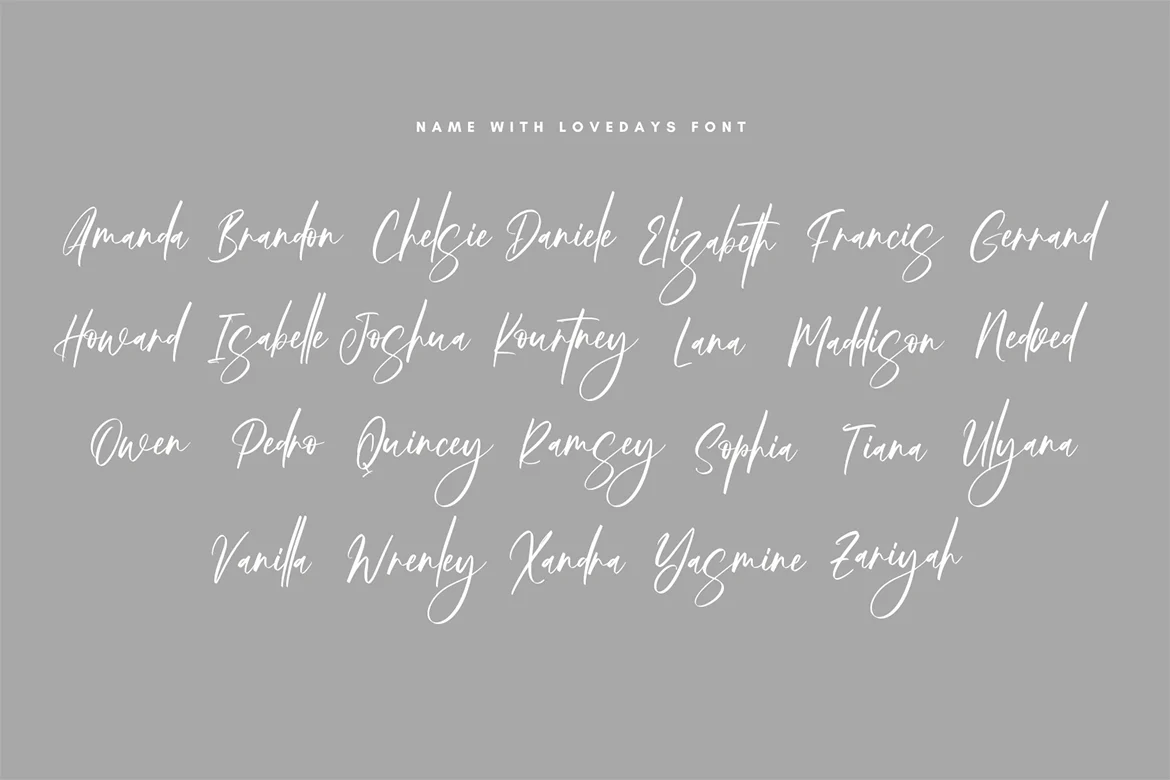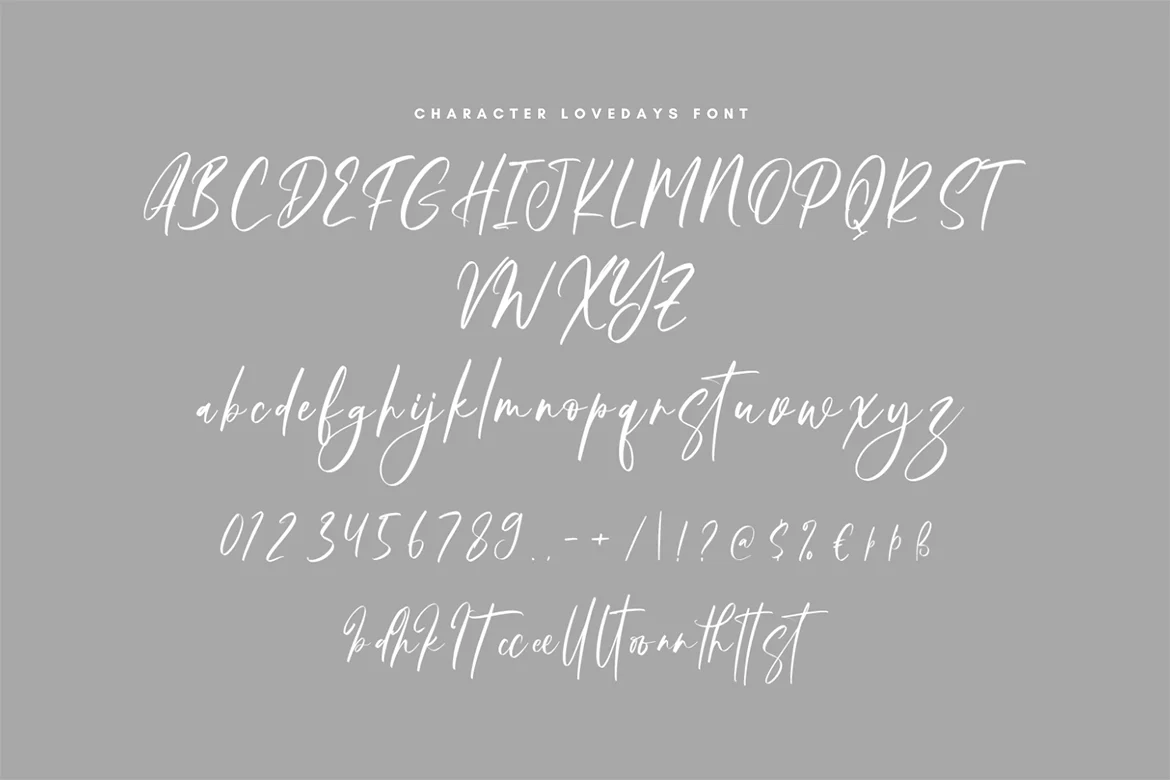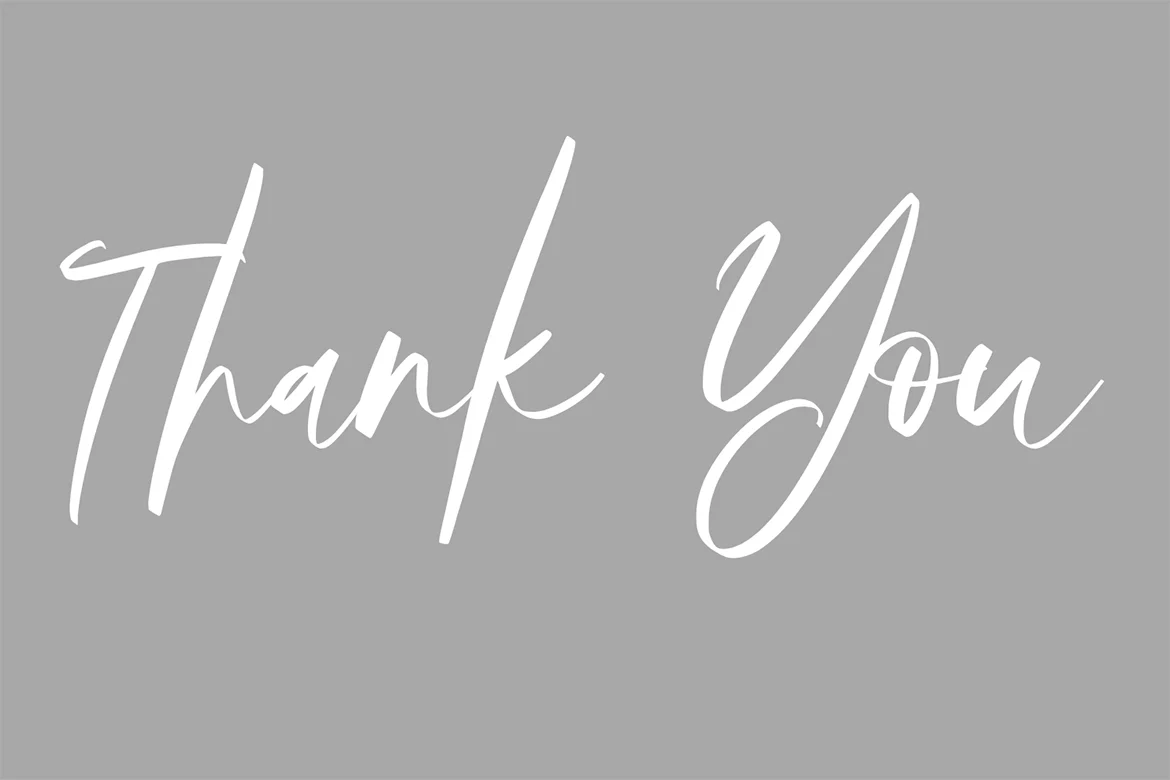
Lovedays – Romantic Script Font
Introducing Lovedays – a romantic and elegant script font designed to bring a touch of charm and sophistication to your projects. With its flowing strokes and graceful curves, Lovedays is perfect for wedding invitations, valentine cards, logos, quotes, and branding that need a personal and heartfelt touch.
This handwritten script exudes warmth and beauty, making it versatile for both modern and classic themes. Equipped with ligatures, alternates, and multilingual support, Lovedays ensures your designs look refined and professional across any platform.
- Ligatures & Alternates
- Numeral & Punctuation